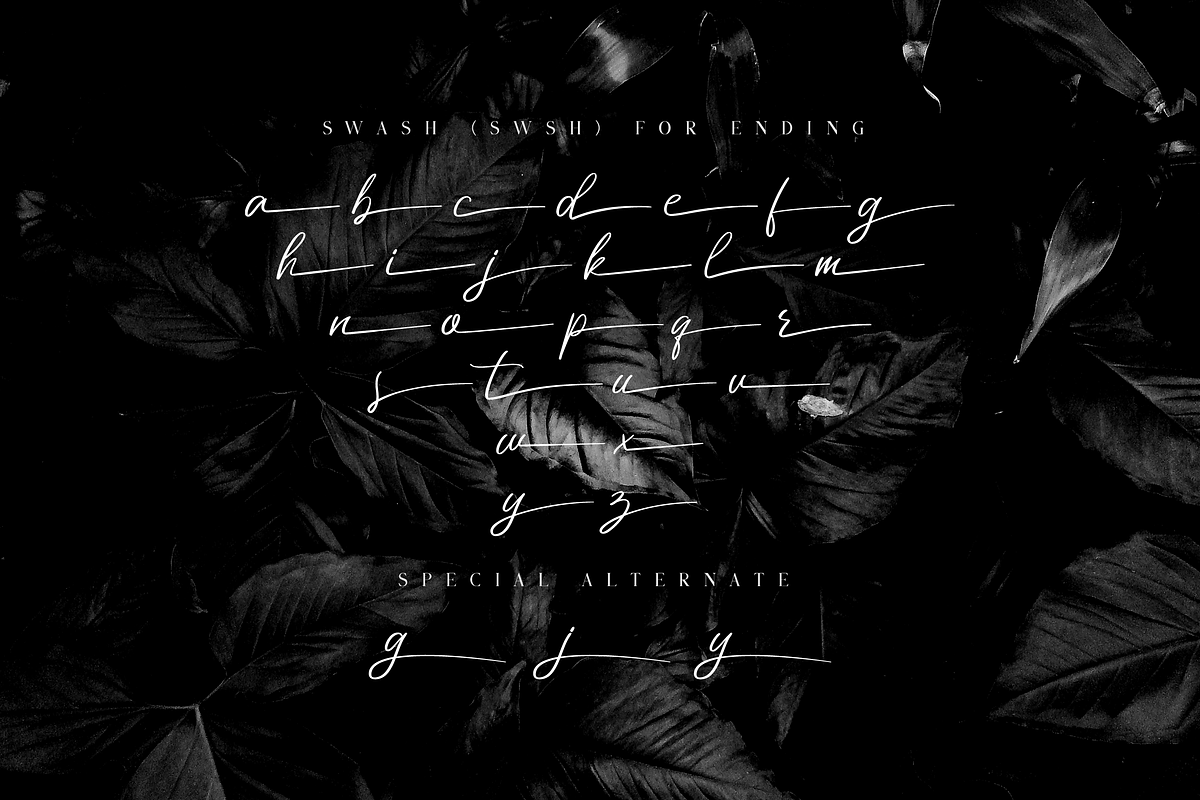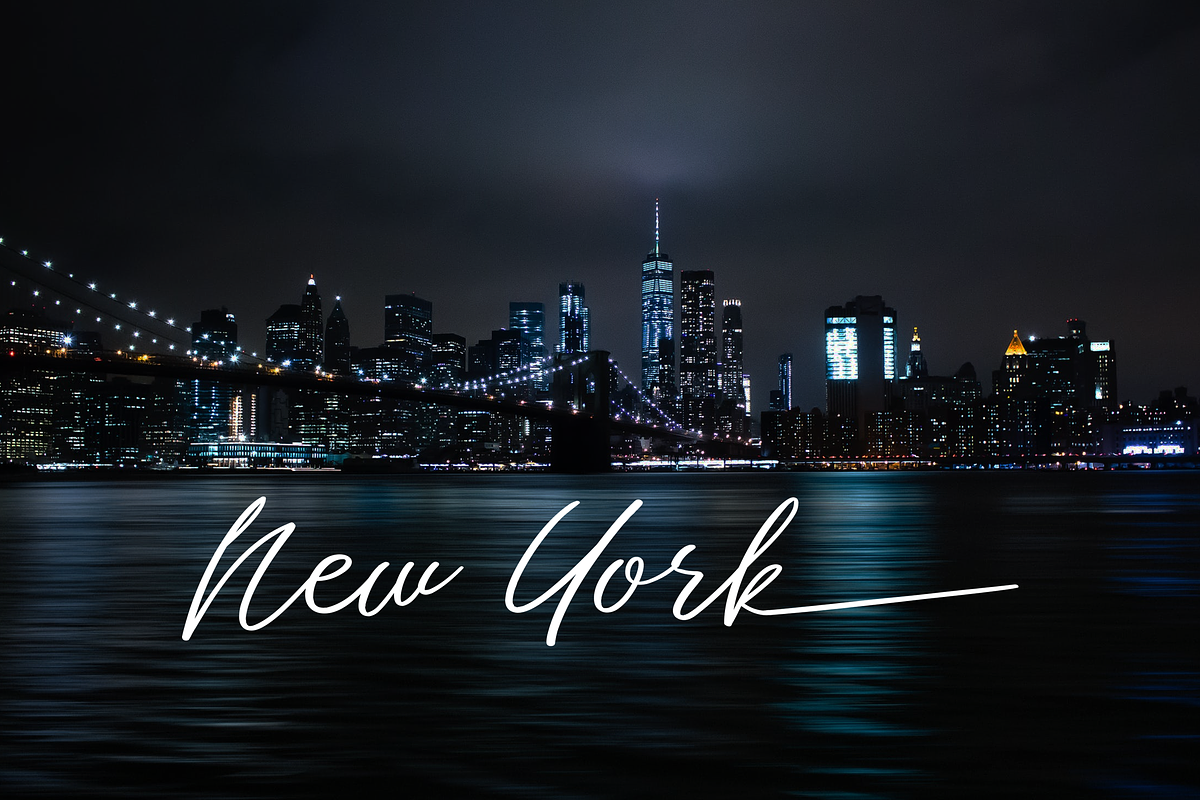
Miss Catlyne // Handwritten Script
Introducing our latest product Miss Catlyne Handwritten Script Typeface.
Miss Catlyne is made to resemble hand scratches, so it looks like a natural style like your own hand scratches.
Miss Catlyne offer beautiful typographic harmony for a variety of design projects, including logos & branding, wedding designs, social media posts, advertisements, product designs, magazines and others.
-Ligature
-Titling & Alternate
-Multilingual support